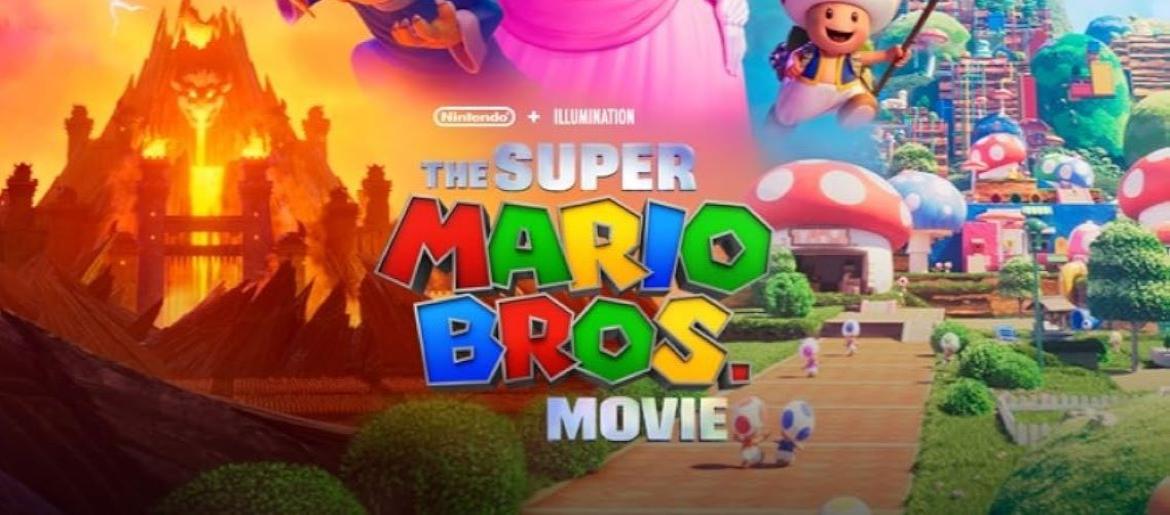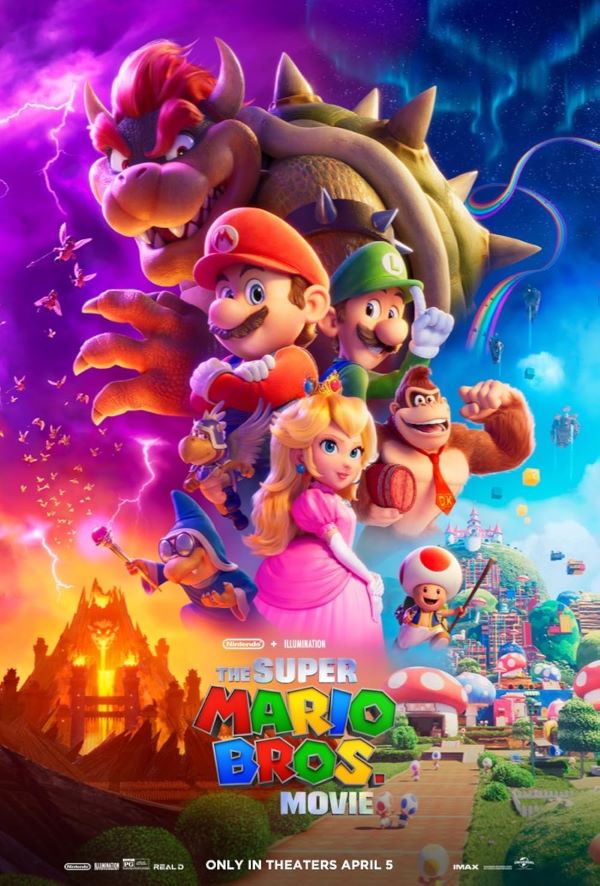
The Super Mario Bros Font
What Font is The Super Mario Bros?
The Super Mario Bros. Movie Font is a fan-made recreation inspired by the vibrant and playful lettering seen in the movie’s official logo. This free font perfectly captures the joyful, nostalgic spirit of the Mario universe with its rounded shapes, bright color potential, and 3D-friendly style. It’s ideal for personal projects, gaming graphics, and designs that celebrate the fun and adventurous tone of the film.
About The Super Mario Bros. Movie
The Super Mario Bros. Movie (2023) brings Nintendo’s iconic characters to life in a colorful animated adventure. Featuring Mario, Luigi, Princess Peach, and Bowser, the film follows the brothers as they journey through the Mushroom Kingdom to stop Bowser’s conquest. The lively typography of the title mirrors the movie’s energy—bold, dynamic, and instantly recognizable to generations of fans.